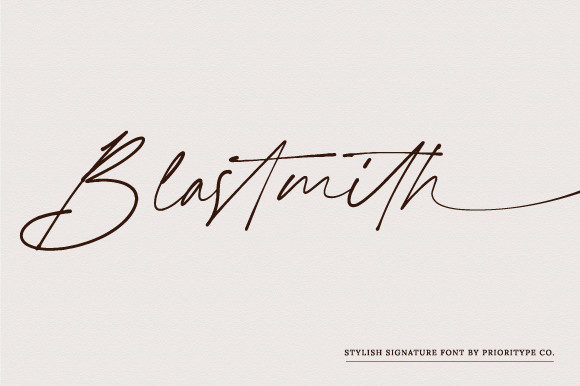
Introducing Blastmith Font: Elevate Your Design with Modern Script Elegance
In the realm of typography, fonts play a pivotal role in conveying messages, evoking emotions, and creating lasting impressions. Among the myriad of fonts available, Blastmith Font stands out as a beacon of modernity and style, offering a unique blend of script elegance and signature-like characteristics. This comprehensive article delves into the world of Blastmith Font, exploring its features, applications, and the value it brings to designers and brands alike.
Blastmith Font: A Modern Script Font with a Personal Touch
Blastmith Font is a contemporary script font that exudes sophistication and charm. Its design is inspired by the fluidity and natural flow of handwritten scripts, yet it maintains a level of precision and clarity that makes it suitable for a wide range of applications. The font’s signature-like characteristics add a personal touch, making it an excellent choice for designs that require a sense of warmth and authenticity.
Key Features of Blastmith Font
- Multiple Ligatures and Swash Characters: One of the standout features of Blastmith Font is its inclusion of several ligatures and swash characters. These elements add a natural, fluid feel to the text, making it appear more organic and less mechanical. This feature is particularly useful in creating visually appealing and engaging content.
- Versatility: The font’s versatility is another key advantage. Blastmith Font can be used across a variety of mediums, including invitation design, branding, quotes, business cards, and social media posts. Its adaptability makes it a valuable asset for designers who need a reliable, high-quality script font for multiple projects.
Applications of Blastmith Font
Blastmith Font’s unique combination of style, elegance, and versatility makes it suitable for a wide range of applications. Here are some of the most notable uses:
- Invitation Design: Whether it’s a wedding invitation, a birthday party invite, or any other special occasion, Blastmith Font adds a touch of class and sophistication. Its elegant script and natural flow make it perfect for conveying the significance and joy of the event.
- Branding: For businesses looking to establish a strong brand identity, Blastmith Font offers a stylish and memorable solution. Its unique characteristics can help a brand stand out in a crowded market, making it more noticeable and engaging to potential customers.
- Quotes and Social Media Posts: In the digital age, visual content is king. Blastmith Font can elevate quotes and social media posts by adding a layer of elegance and sophistication. Its readability and aesthetic appeal make it an excellent choice for creating engaging and shareable content.
- Business Cards: A business card is often the first impression a potential client or partner gets of a professional. Using Blastmith Font can make a business card stand out, conveying a sense of professionalism and attention to detail.
Design Tips for Using Blastmith Font
To maximize the impact of Blastmith Font, consider the following design tips:
- Pair with Complementary Fonts: When using Blastmith Font in a design, consider pairing it with fonts that complement its script elegance. A sans-serif font can provide a nice contrast, making the overall design more dynamic and visually appealing.
- Adjust Letter Spacing: The natural flow of Blastmith Font can be further enhanced by adjusting the letter spacing. This can help create a more cohesive and harmonious look, especially in longer texts.
- Utilize Swashes and Ligatures: Don’t be shy to experiment with the font’s swashes and ligatures. These elements can add a unique touch to your design, making it more personalized and engaging.
In conclusion, Blastmith Font is a modern and stylish script font that offers a unique blend of elegance, versatility, and natural flow. Its signature-like characteristics, combined with multiple ligatures and swash characters, make it an excellent choice for a wide range of design applications. Whether you’re working on invitation designs, branding, quotes, business cards, or social media posts, Blastmith Font is sure to elevate your work and leave a lasting impression on your audience.